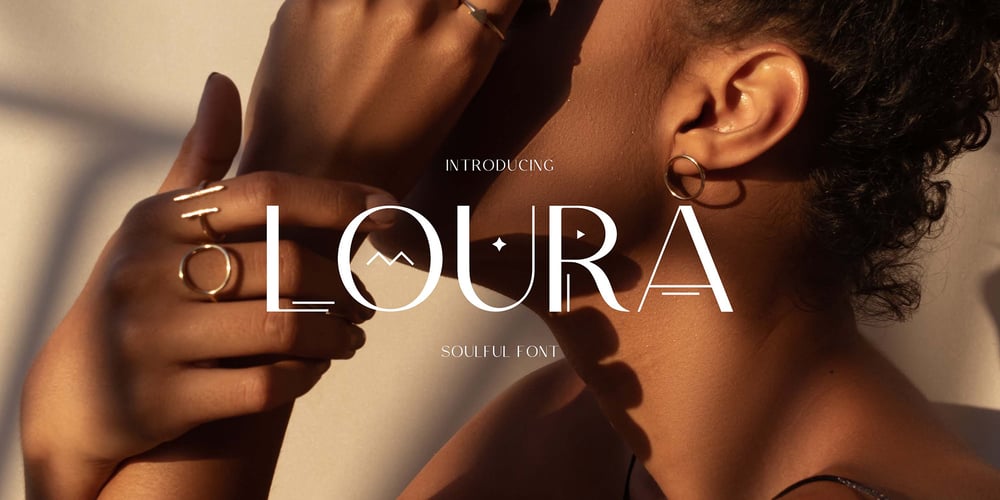
Loura Font Family was designed by Elvina Gafarova and published by Elvina Studio. Loura contains 2 styles and family package options. Loura is a sans serif font with geometric details. Uppercase, numbers, punctuations, alternates; Multilingual support. UPPERCASE letters – simple font, lowercase letters – symbol font.Please note: All alternates can also be accessed via a Glyphs panel (Adobe software).Thank you!